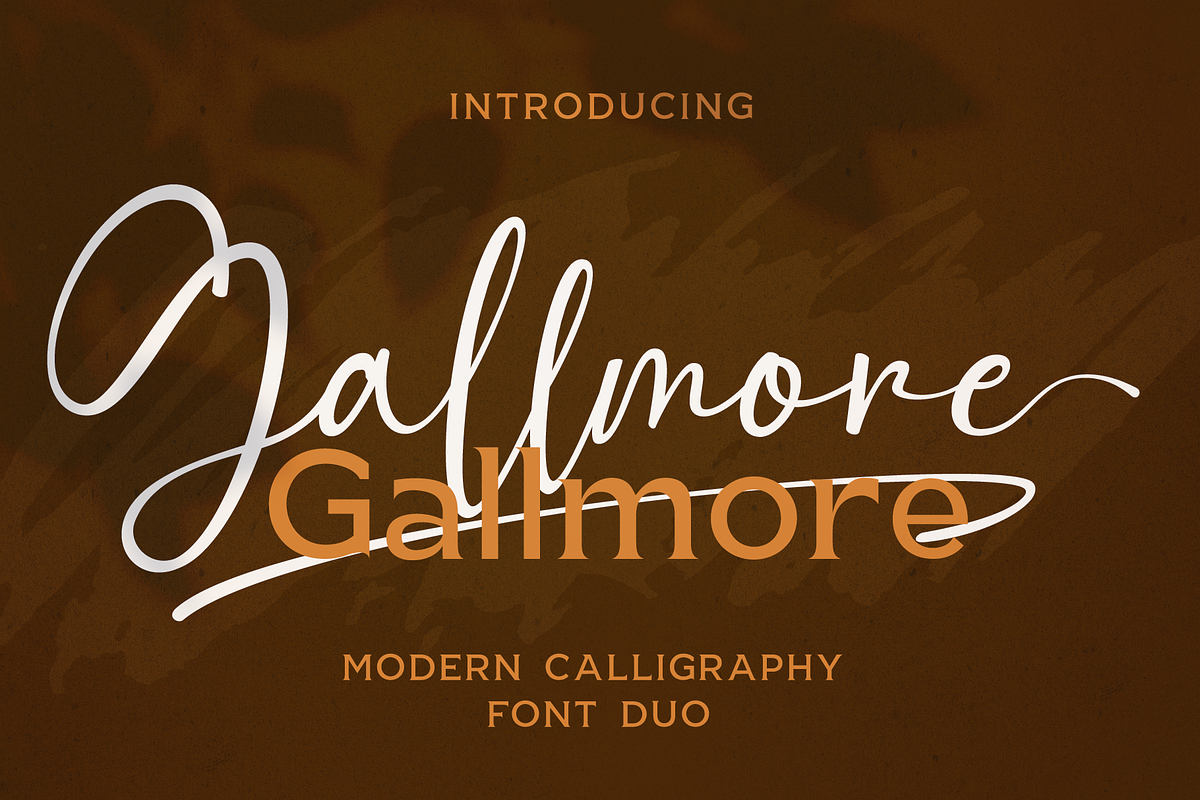
Gallmore // Chic Font Duo Free Download
Gallmore // Chic Font Duo Free Download is an elegant and versatile font pair that includes a stylish serif and a sophisticated script font. Perfect for a wide range of design projects, this duo is ideal for branding, logos, wedding invitations, social media graphics, and more.
The serif font provides a clean, classic look, while the script font adds a personal, handwritten touch, offering a perfect balance between structure and elegance. Whether you're designing a luxury brand identity, crafting invitations, or creating chic promotional materials, Gallmore Font Duo adds refinement and personality to your typography.